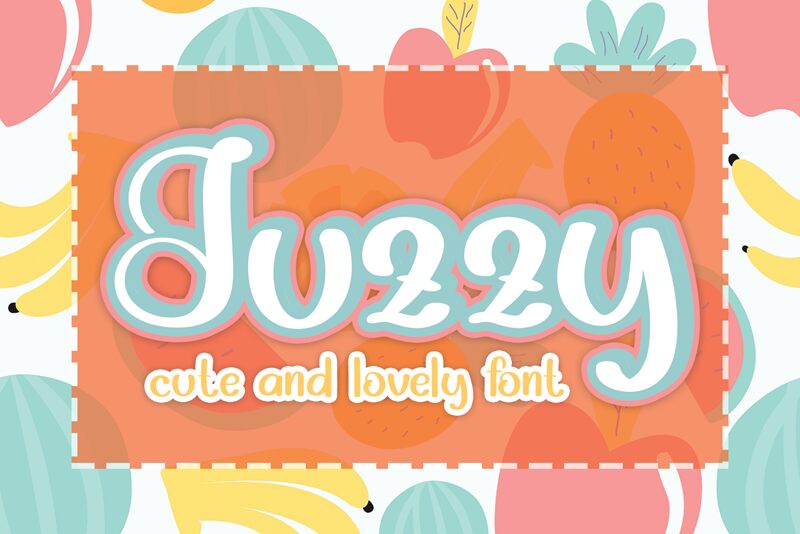
Juzzy
Juzzy is a cool and fun display font designed by Luluk Surotul. It can easily be matched to an incredibly large set of projects, so add it to your creative ideas and notice how it makes them stand out!